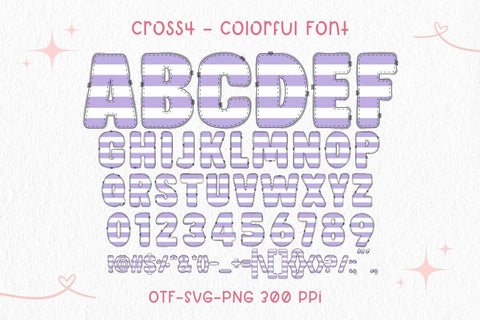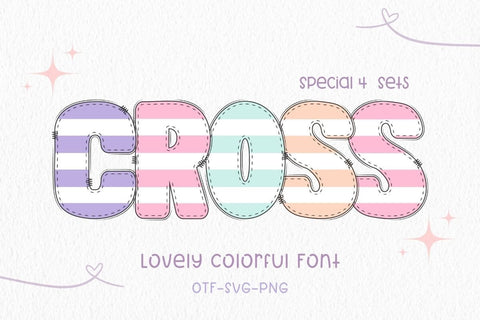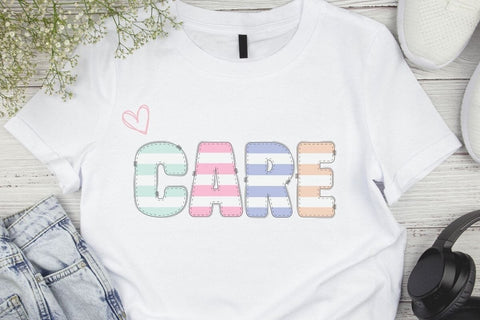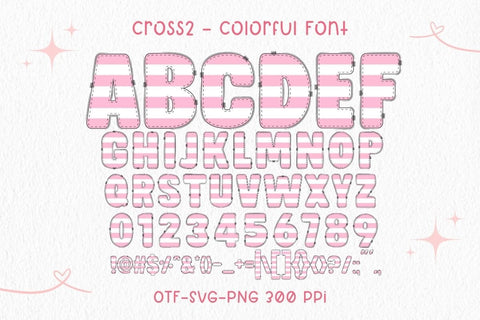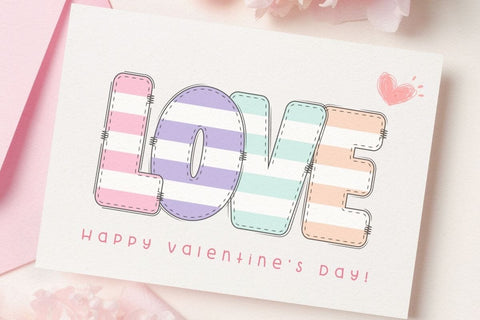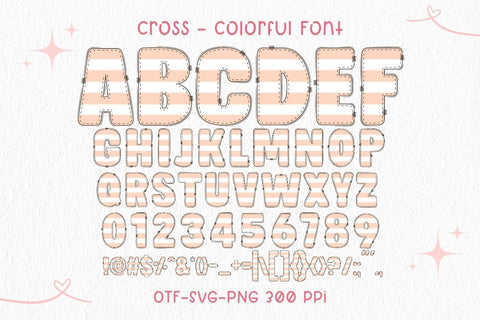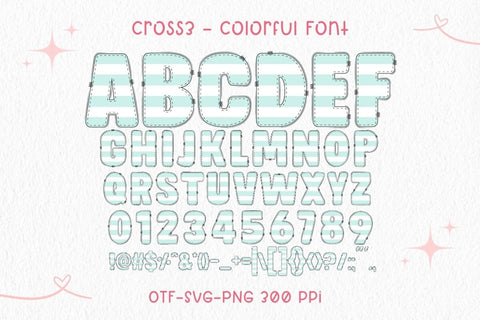
Cross - Color Font
Cross is a playful lovely colorful font featuring pastel stripes and stitched outlines. Comes in 4 unique font sets (orange, pink, mint, purple) to match your creative themes. Ideal for Valentine’s projects, apparel, mugs, totes, cards, and more.